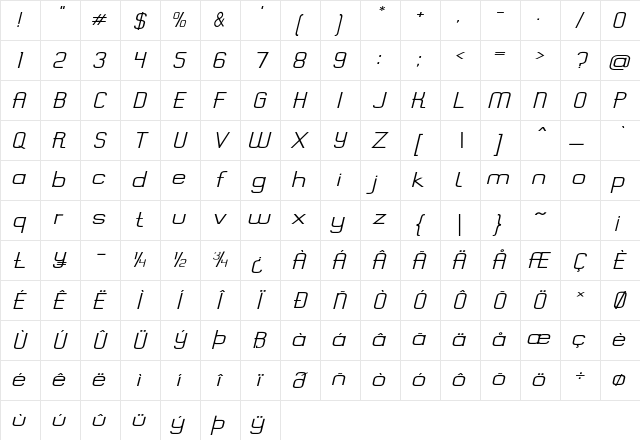
Pipsqueak Expanded Italic
Style: Expanded Italic
Pipsqueak Family
Pipsqueak Expanded Italic
Complete Pipsqueak Expanded Italic glyph index. Displaying only characters natively supported by Pipsqueak Expanded Italic font.
Design Context for Pipsqueak
Pipsqueak is a composed and adaptable typeface that performs quietly and consistently across a wide range of design contexts. The slanted form adds forward momentum and visual energy.
Pro Tip: Use Pipsqueak for emphasis, pull quotes, and subheadings where its slanted energy can add rhythm to the layout.